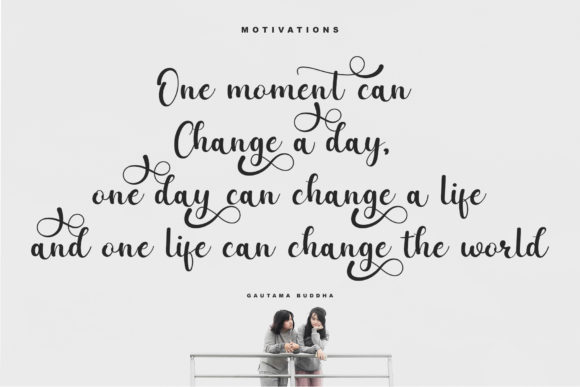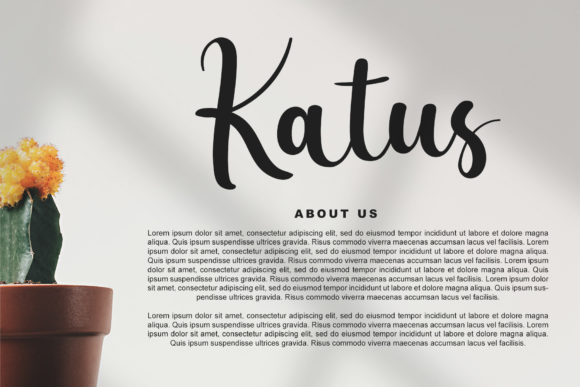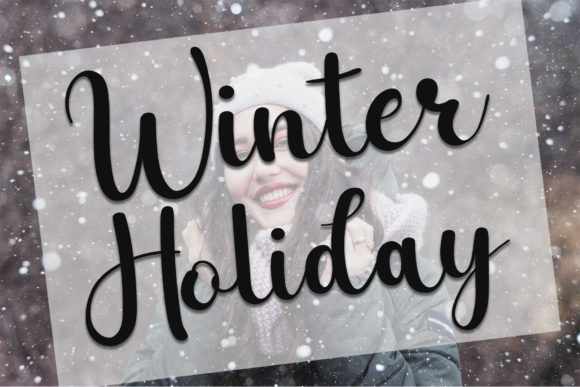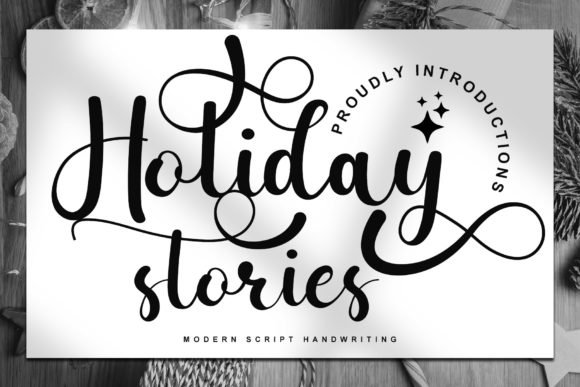
Holiday Stories is an elegant handwritten font featuring additional whimsical swishes and heart elements.
The font will be sure to bring a loving touch to your craft or design project This font is PUA encoded which means you can access all of the glyphs and swashes with ease.